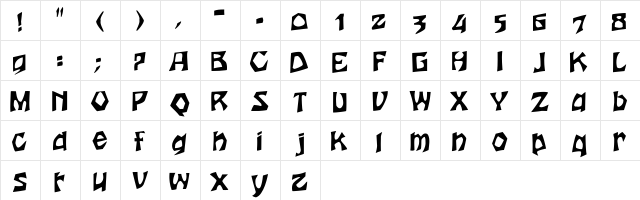
Hooters-Normal Regular
Design Context for Hooters-Normal Typeface
Hooters-Normal is a composed and adaptable typeface that performs quietly and consistently across a wide range of design contexts.